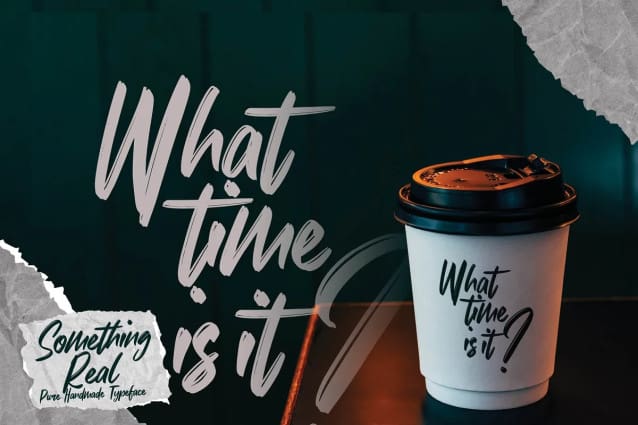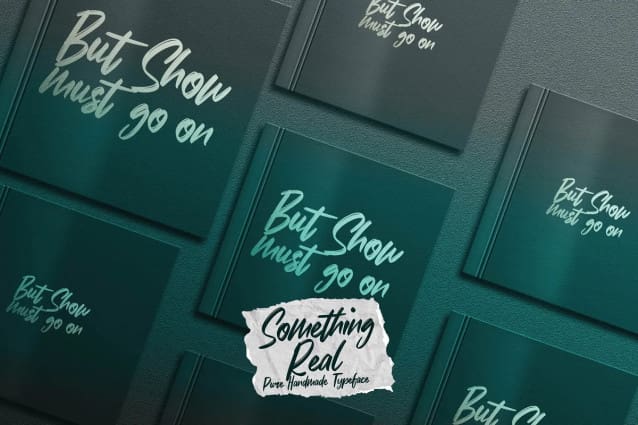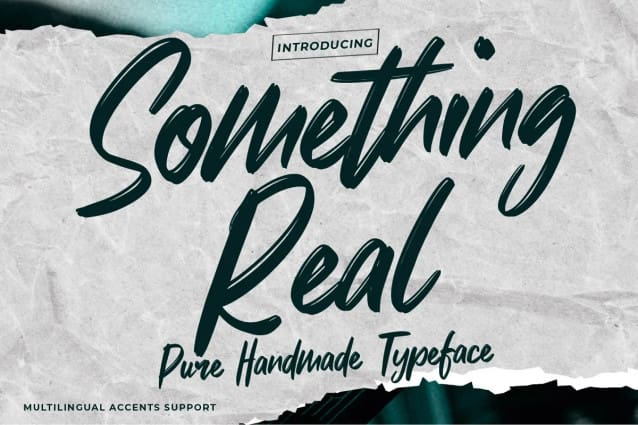
Something Real Font
Something Real Font – Pure Handmade Typeface font with a Signature Style and classy style, this font is great for your creative projects such as watermark on photography, and perfect for logos & branding, photography, invitation, watermark,advertisements,product designs, stationery, wedding designs,label ,product packaging, special events or anything that need handwritting taste.